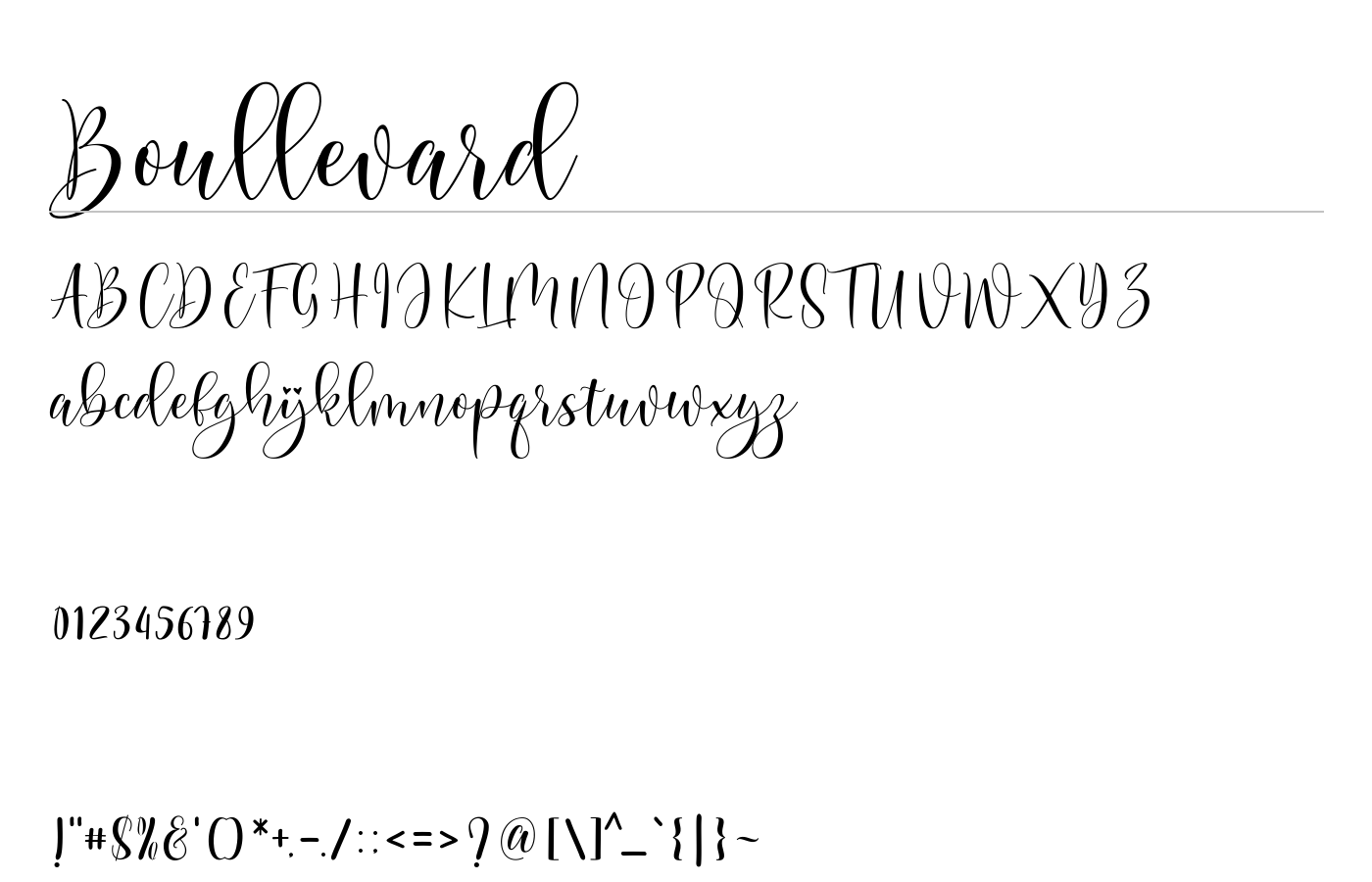
Boullevard is an elegant script font with a delicate, flowing style that combines modern calligraphy with a playful touch. Its slender strokes and high contrast create a graceful, airy feel, making it perfect for invitations, logos, and fashion branding where a sophisticated and personal look is desired. This font shines best in headlines and decorative uses, adding charm and refinement to any design.
Boullevard Font
About Boullevard Font
| Font family | Boullevard Font |
| Designer | Hermes |